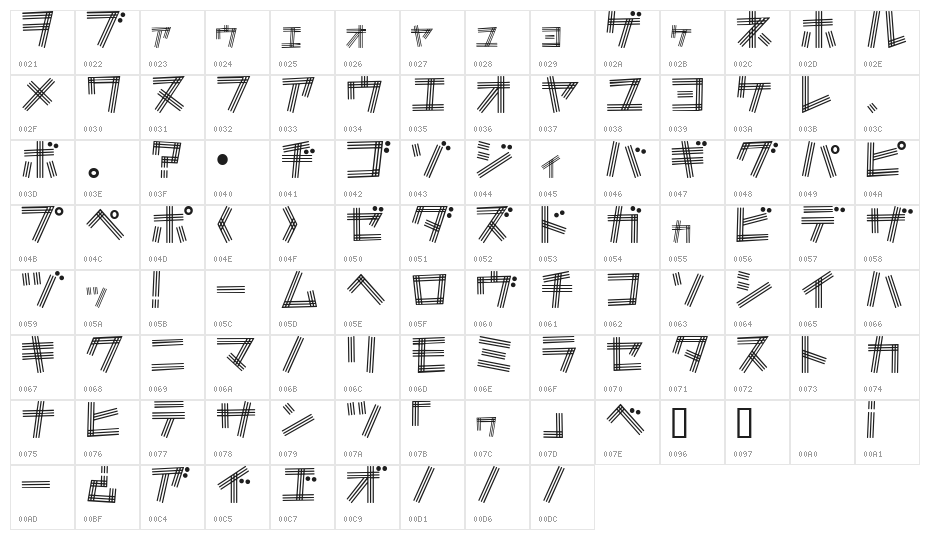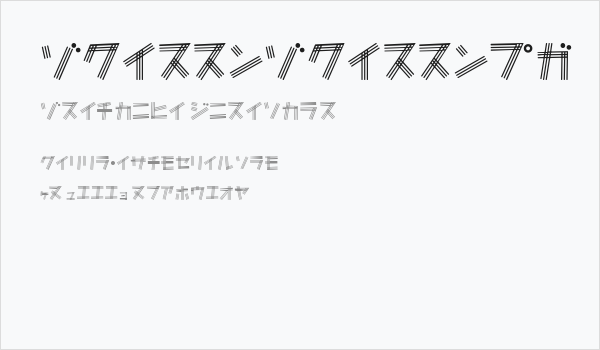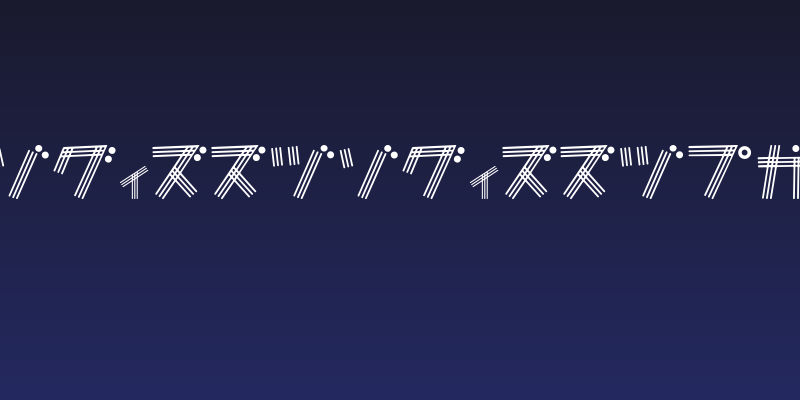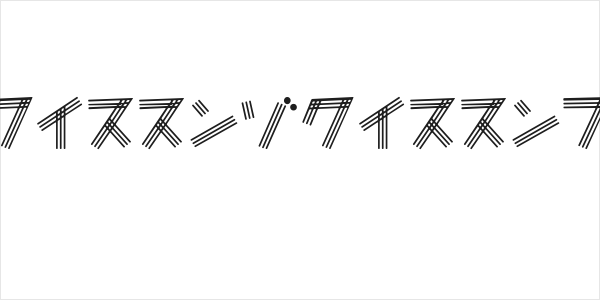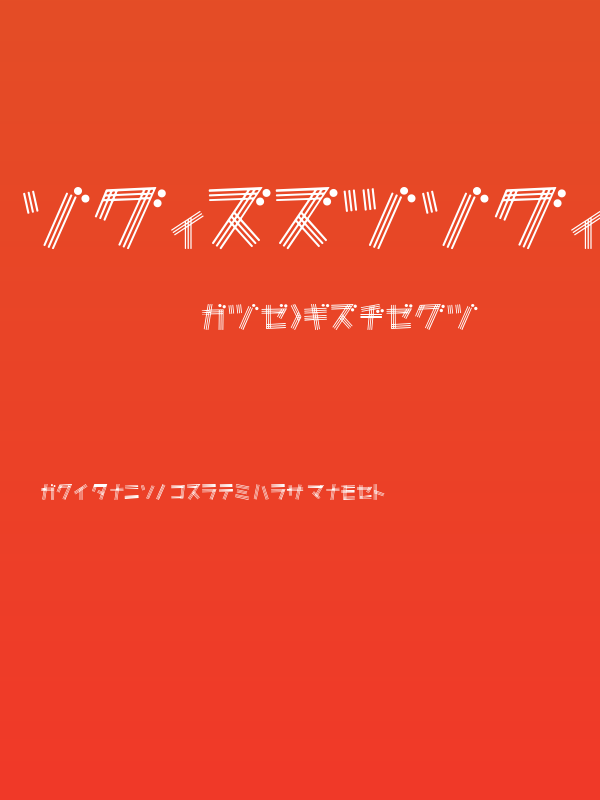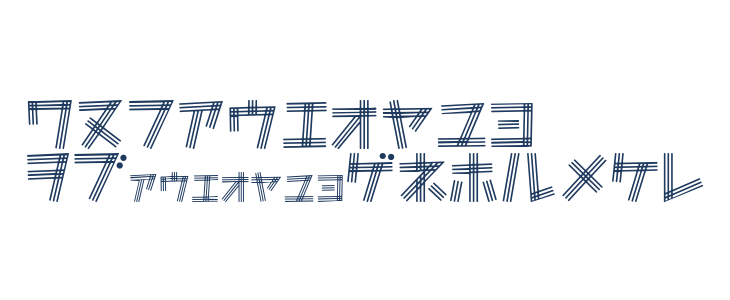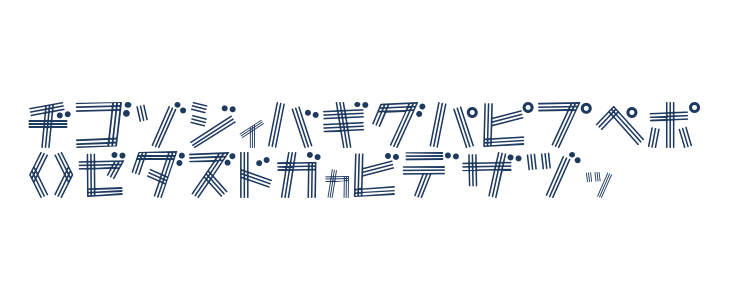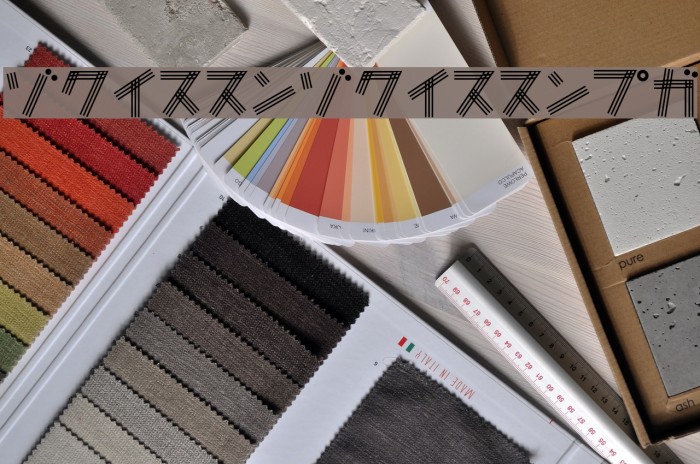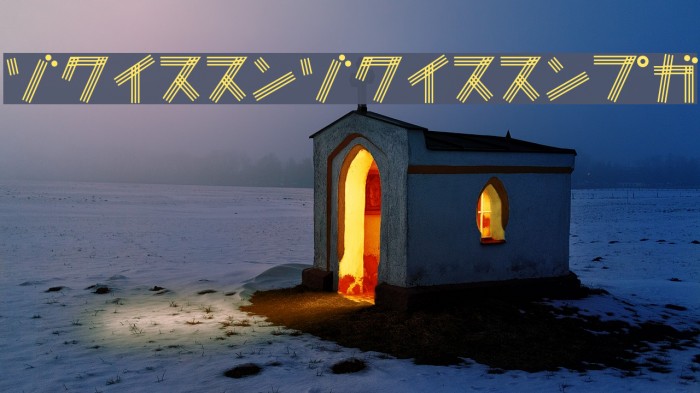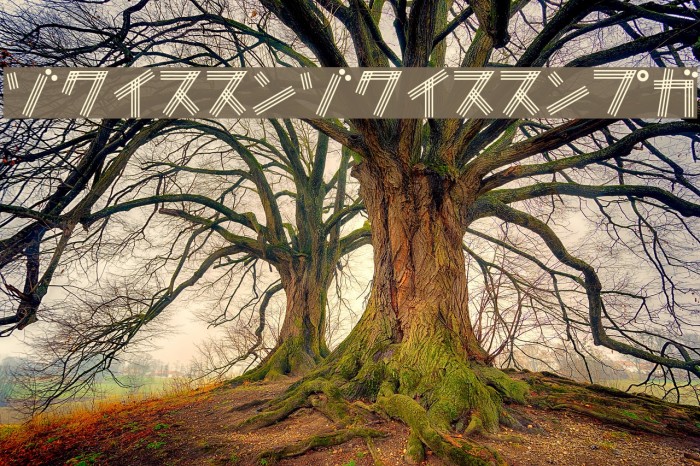
CherryCherryKT Font
CherryCherryKT Description
This font features a distinctive, decorative style with a series of parallel lines forming each character. The design is highly geometric, with a consistent use of horizontal and vertical lines that create a unique, striped appearance. The characters are bold and eye-catching, making them suitable for display purposes. The font's structure is consistent across all characters, providing a uniform look that is both modern and artistic. The spacing between characters is relatively tight, enhancing the compact and cohesive feel of the text. This font is ideal for projects that require a strong visual impact, such as posters, logos, or branding materials.
| Overall Style | Modern, Decorative |
| Proposed Projects | Ideal for posters, logos, branding materials, and any project needing a strong visual impact. |